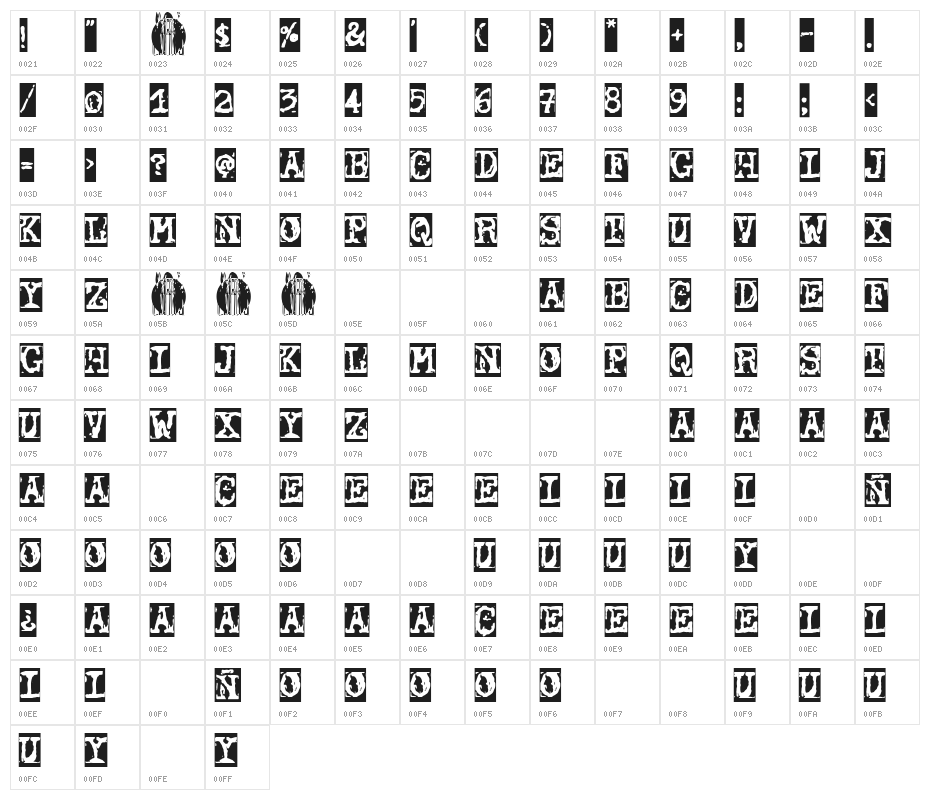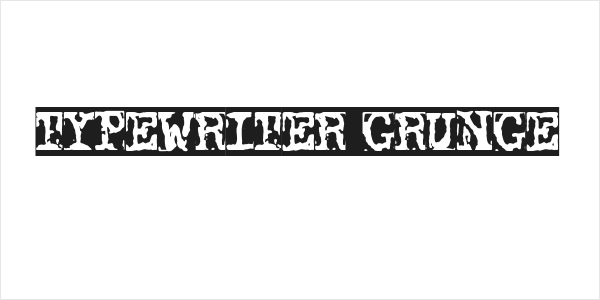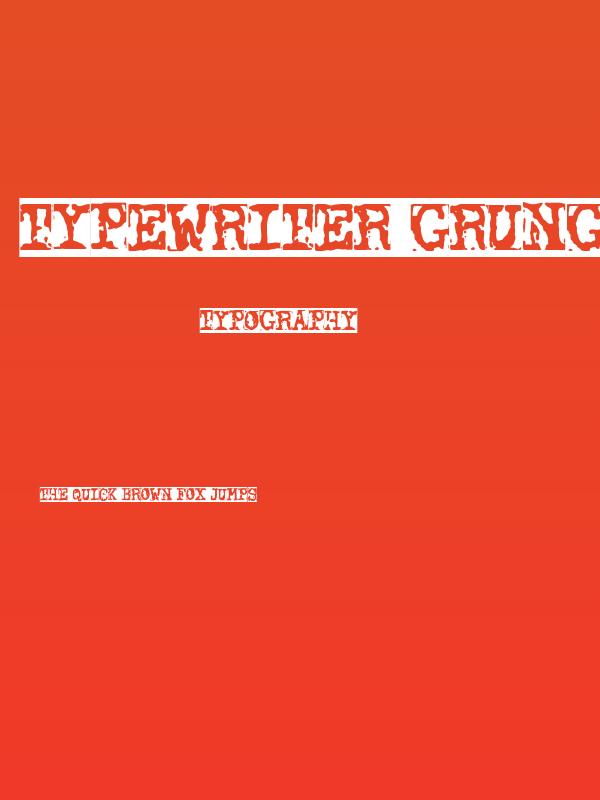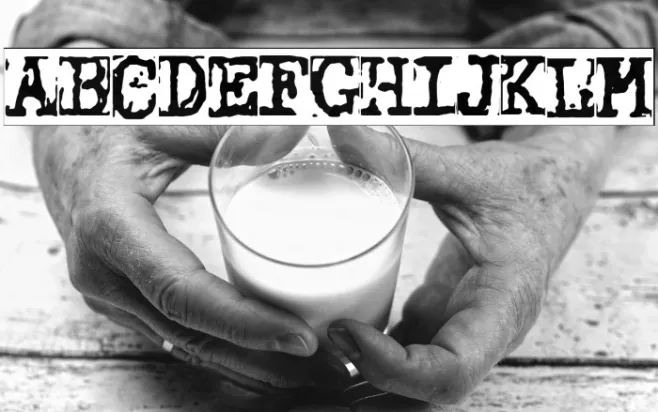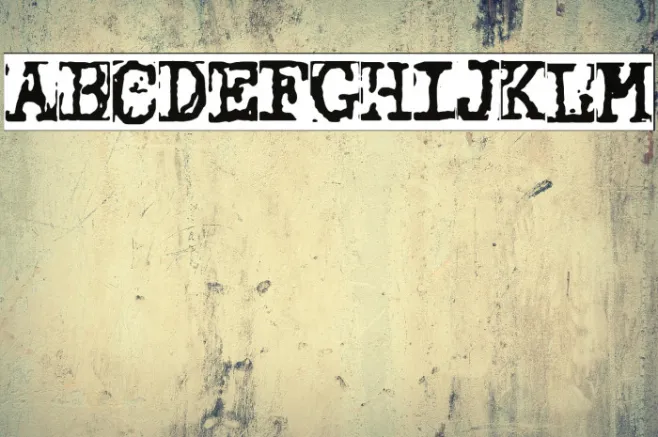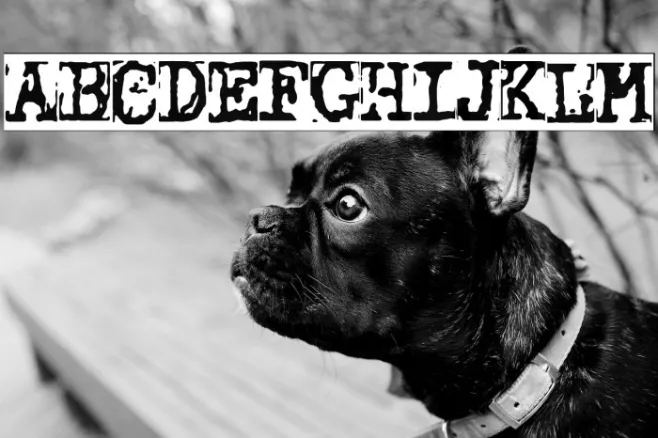
Typewriter Grunge Font
Typewriter Grunge Description
This font exudes a rugged, distressed aesthetic reminiscent of vintage typewriters with a grunge twist. The characters are bold and heavily textured, featuring irregular edges and a worn-out appearance that adds a sense of authenticity and rawness. The uppercase and lowercase letters maintain a consistent design, with each character appearing as though it has been stamped or printed with an old, ink-splotched typewriter. Numbers and special characters follow the same stylistic approach, ensuring a cohesive look across all glyphs. The font's unique style makes it ideal for projects that require a touch of nostalgia or a gritty, urban feel.
| Overall Style | Vintage, Grunge |
| Proposed Projects | Ideal for vintage-themed posters, album covers, book titles, and branding that requires a rugged, authentic look. |